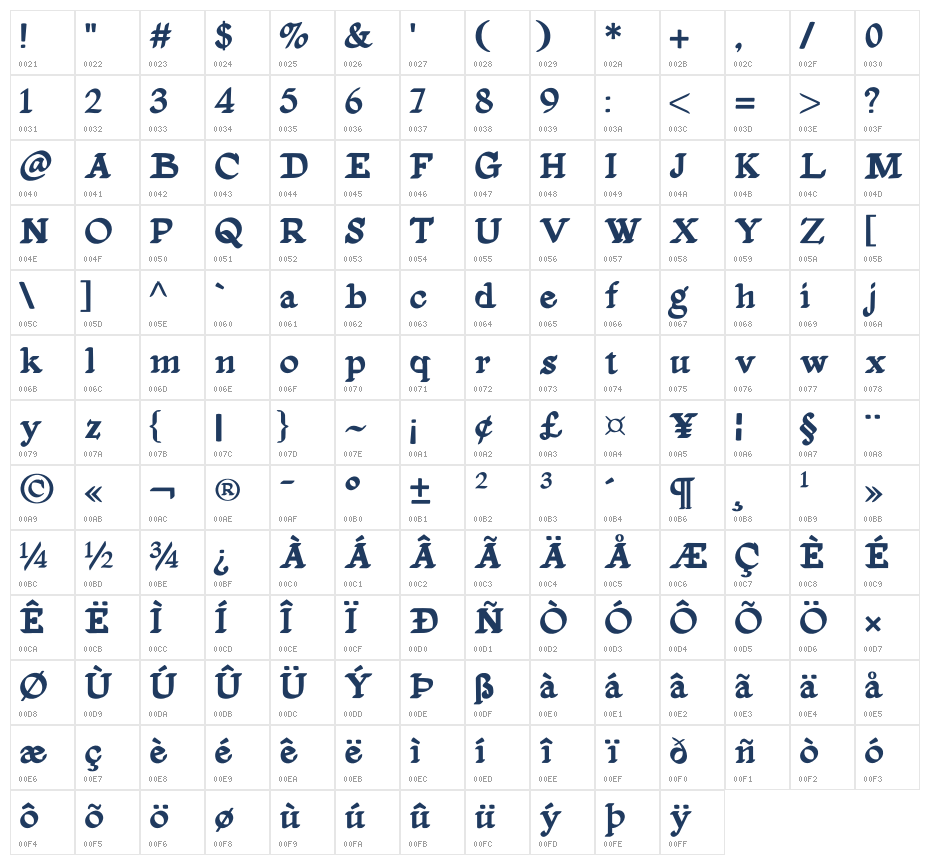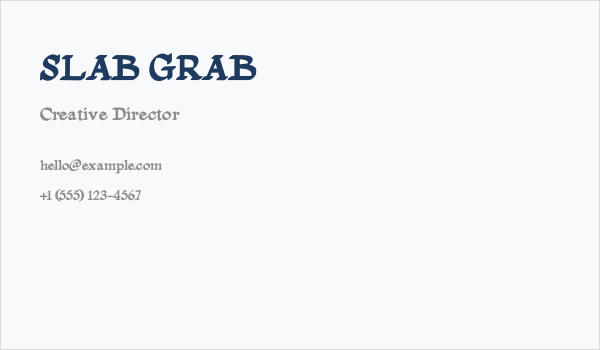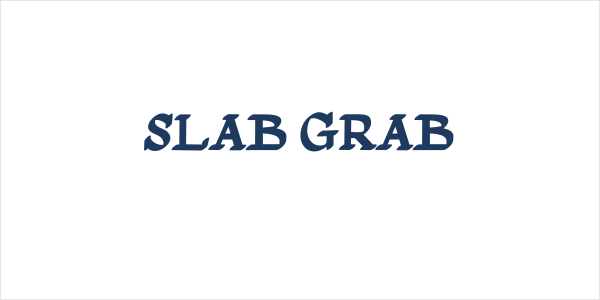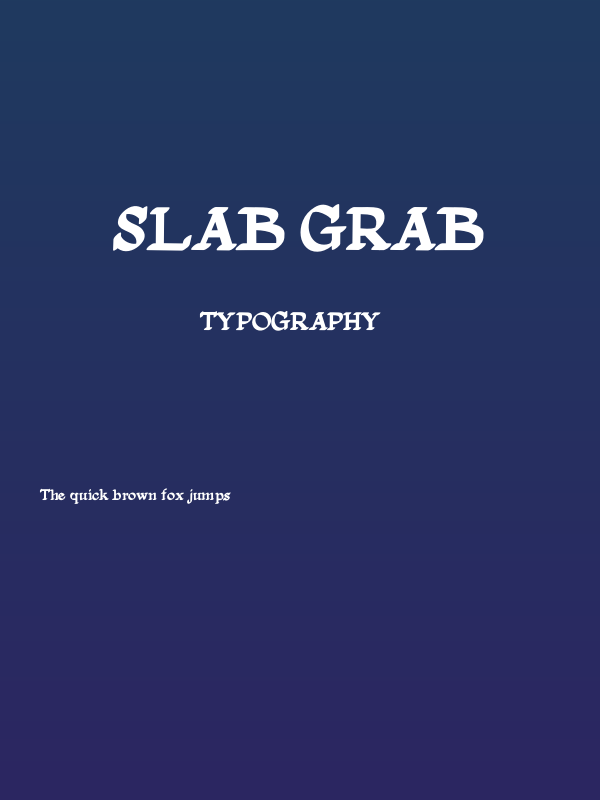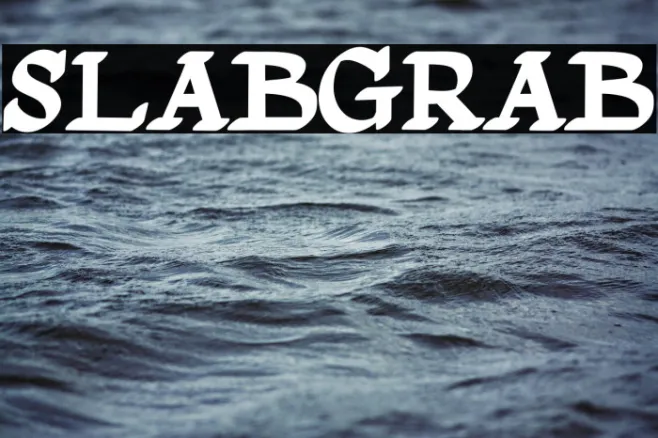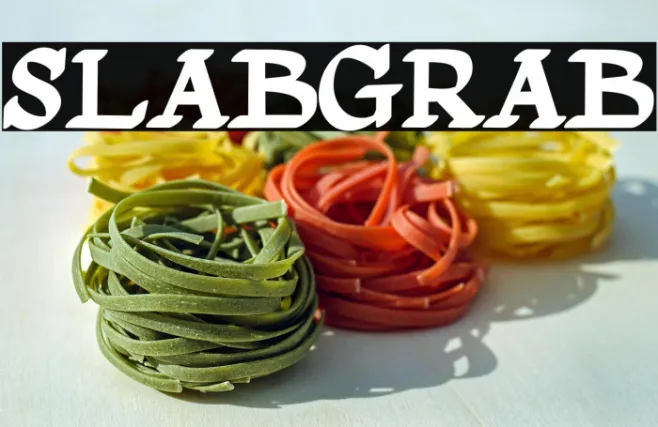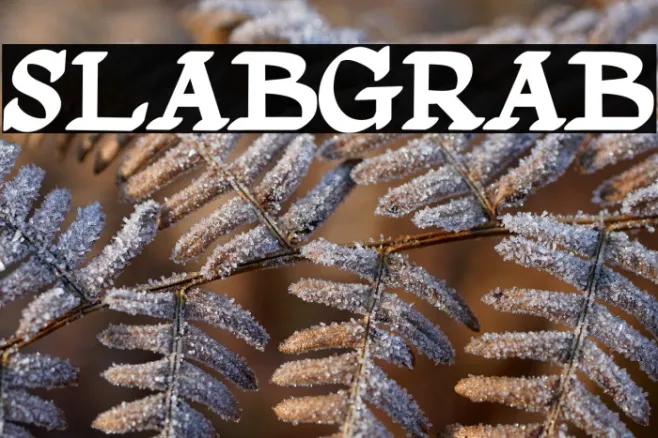
SLAB GRAB Font
SLAB GRAB Description
A bold, decorative serif font with a vintage style, featuring thick and thin strokes with ornate details.
| Overall Style | Vintage, Decorative |